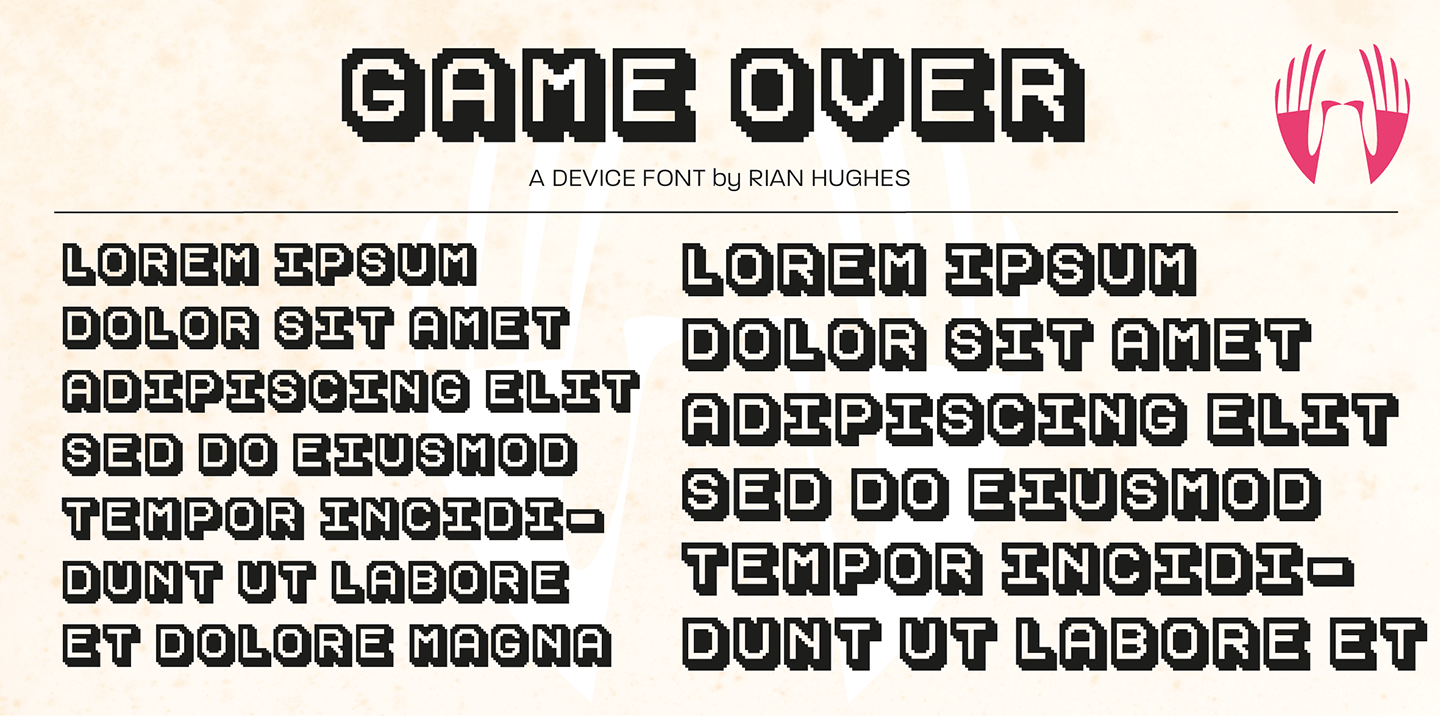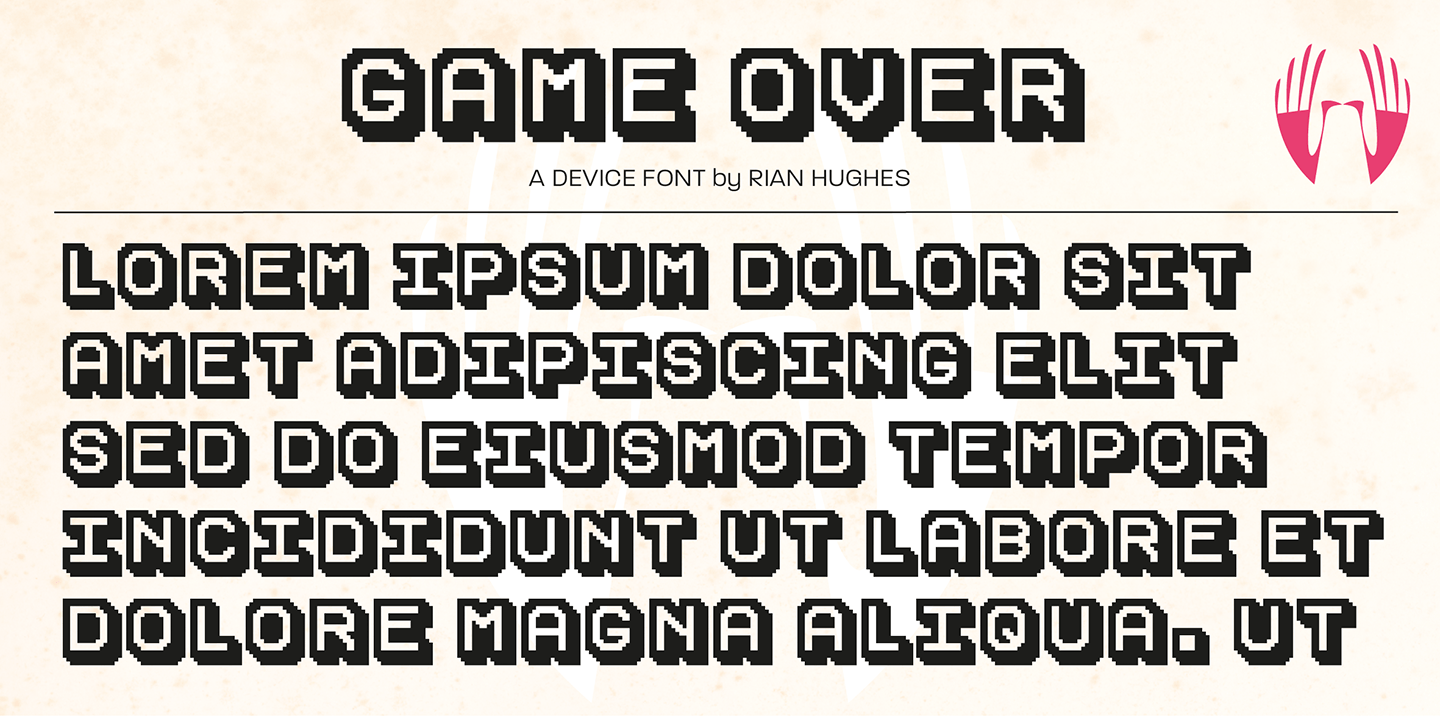
Game Over
Game Over is a single-style display font from Device with a distinctly retro, 1980s new wave attitude. Its look feels bold, graphic, and era-specific, making it a strong choice when you want typography that brings instant throwback energy and a sharp contemporary-vintage edge.
Because of its stylized display character, it’s especially well suited to posters, album-inspired graphics, branding with a retro slant, apparel, packaging, and other headline-driven work where the type needs to set the mood quickly. If you’re building a design around 1980s references or new wave visual culture, this face gives you a focused, recognizable voice without needing a large family.